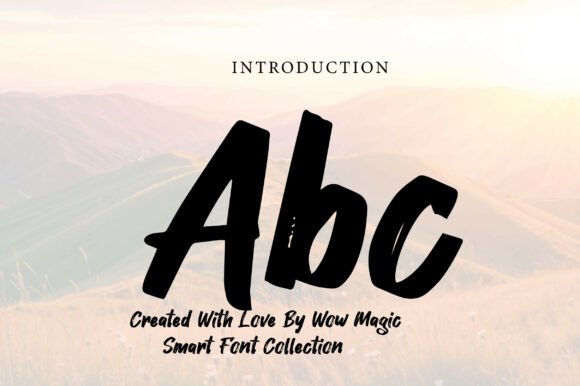
Introduction to Mollroy Font Font
Fonts play a crucial role in design, and the Mollroy Font font is a typeface that brings both character and versatility to any project. Whether you’re working on a branding project, a website, or a print design, the Mollroy Font font offers a unique style that can elevate your work.
Mollroy is a bold dry brush display font designed to bring raw energy, movement, and personality to your typography.
Its rough painted style makes Mollroy ideal for projects that need a bold and attention-grabbing look Whether you are designing posters, streetwear branding, product packaging, album covers, social media graphics, or creative headlines, this font helps your text stand out with confidence and character.
Key Features of Mollroy Font Font
Why Choose Mollroy Font Font?
The Mollroy Font font is more than just a typeface – it’s a design tool that helps you communicate your message with style and clarity. Its unique character set and versatile design make it suitable for a wide range of applications, from elegant invitations to bold headlines.
With its carefully crafted letterforms and balanced proportions, the Mollroy Font font ensures readability and visual appeal across all mediums.
What makes Mollroy Font font special?
The Mollroy Font font stands out with its unique design, exceptional readability, and versatility across various design applications.